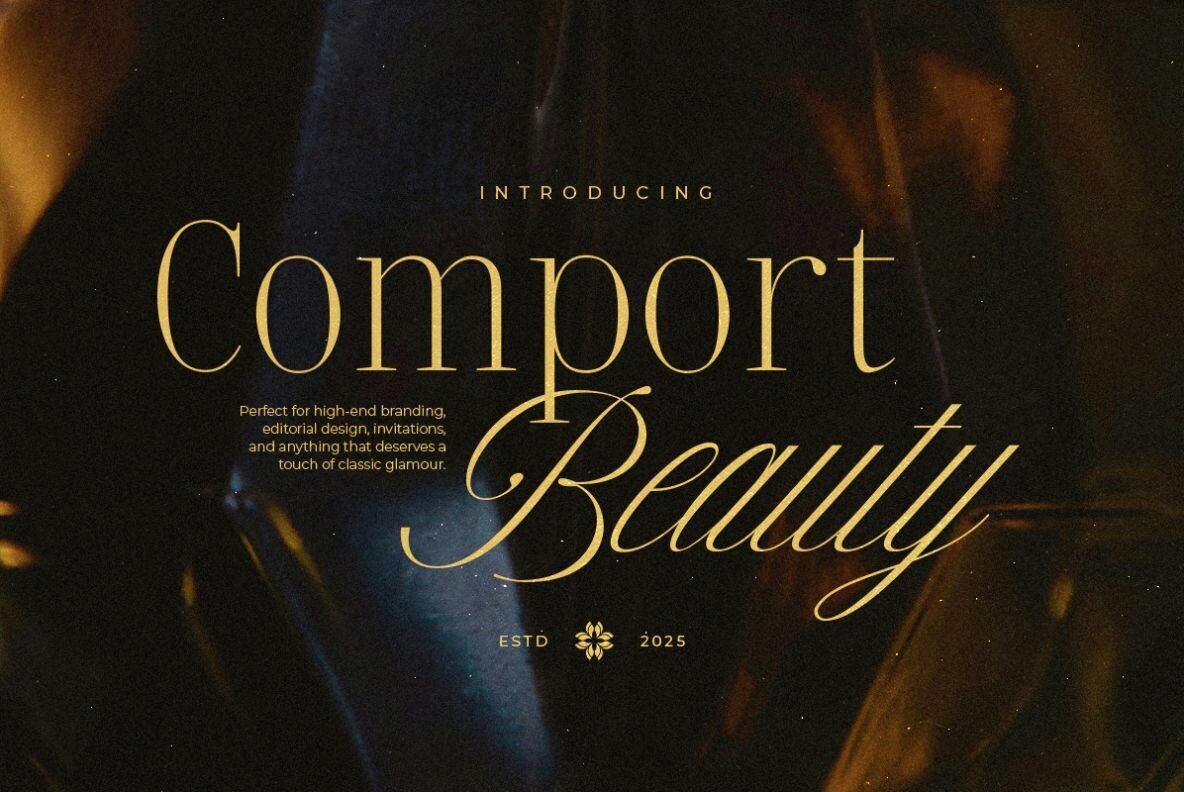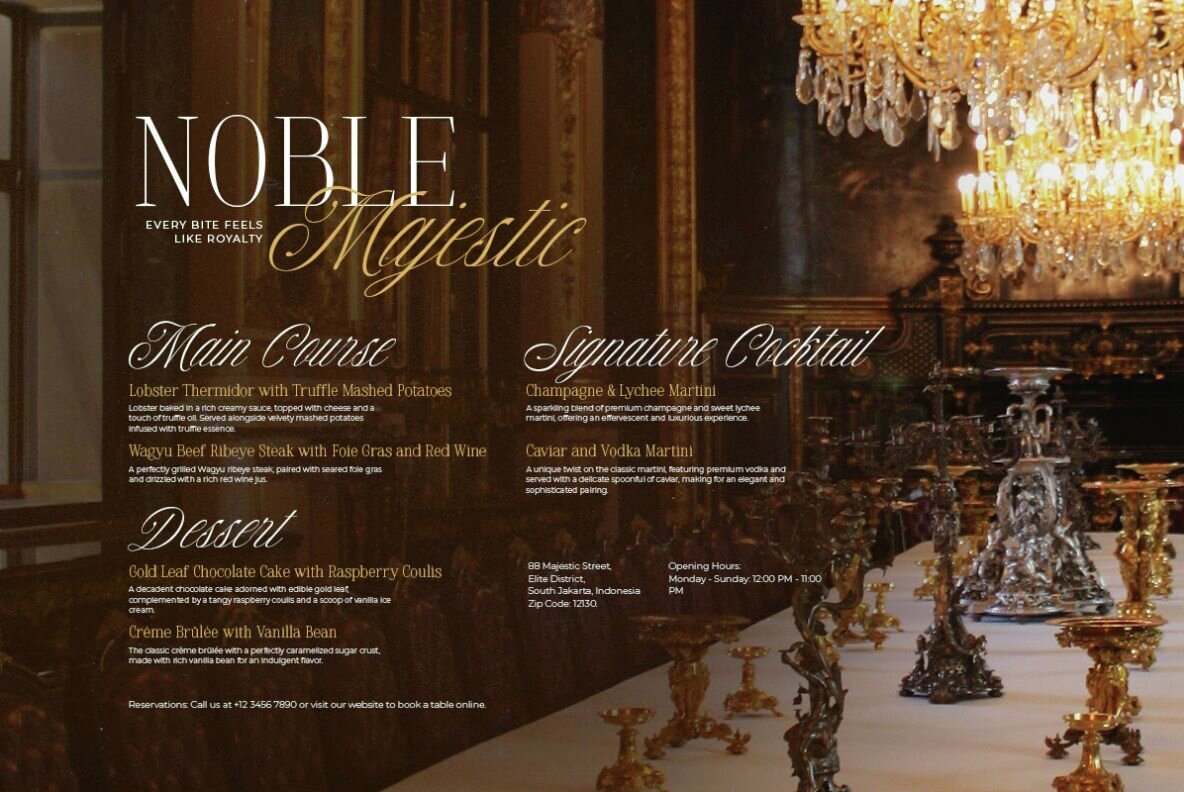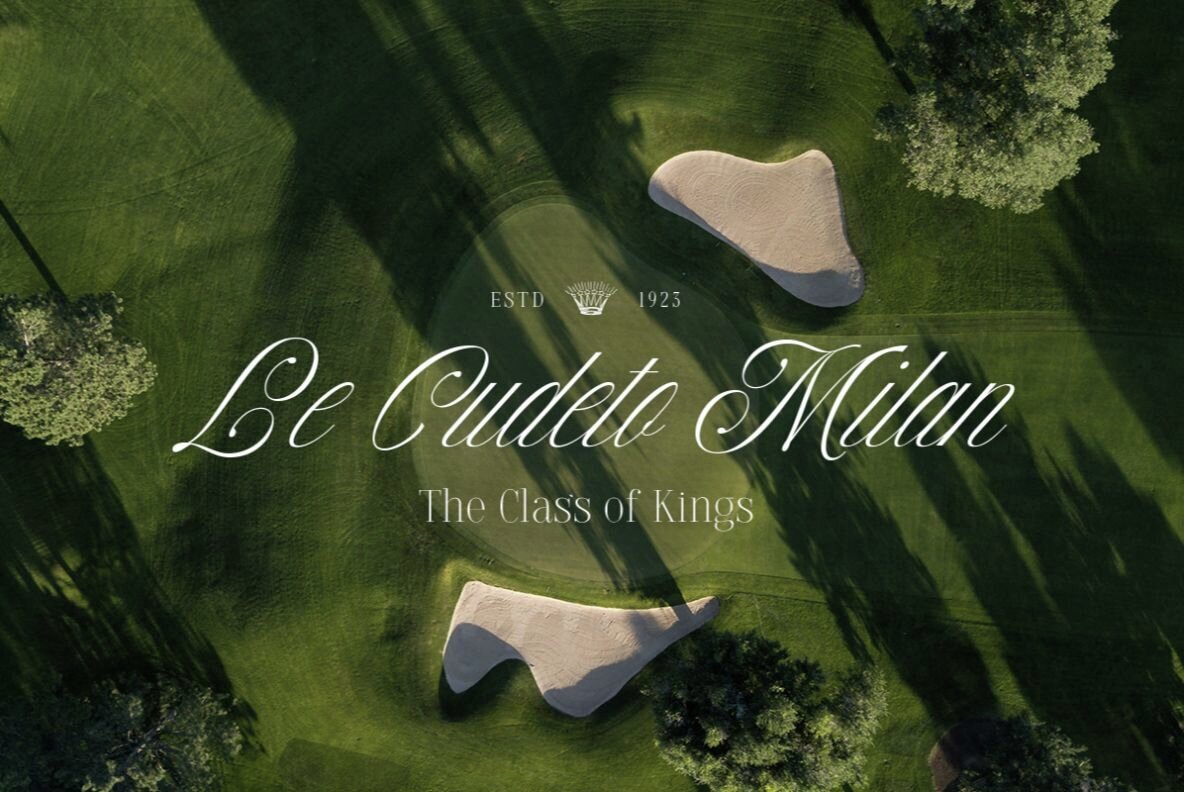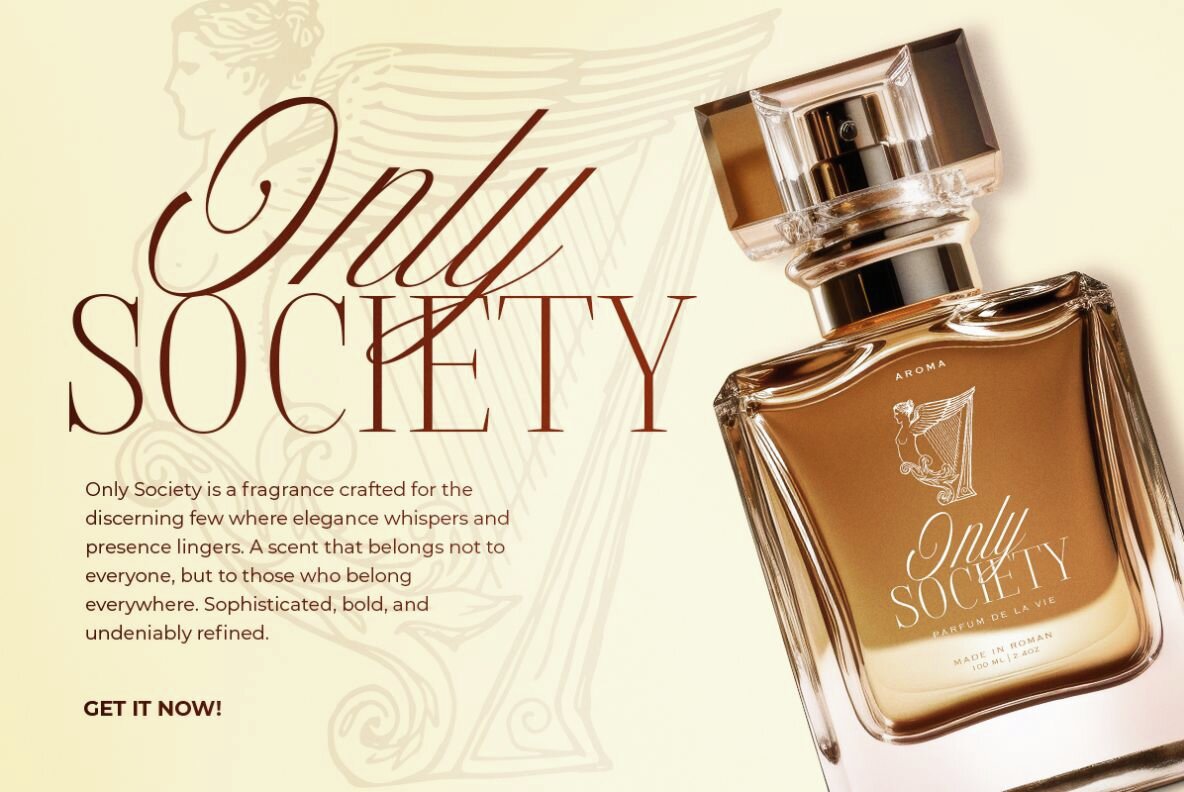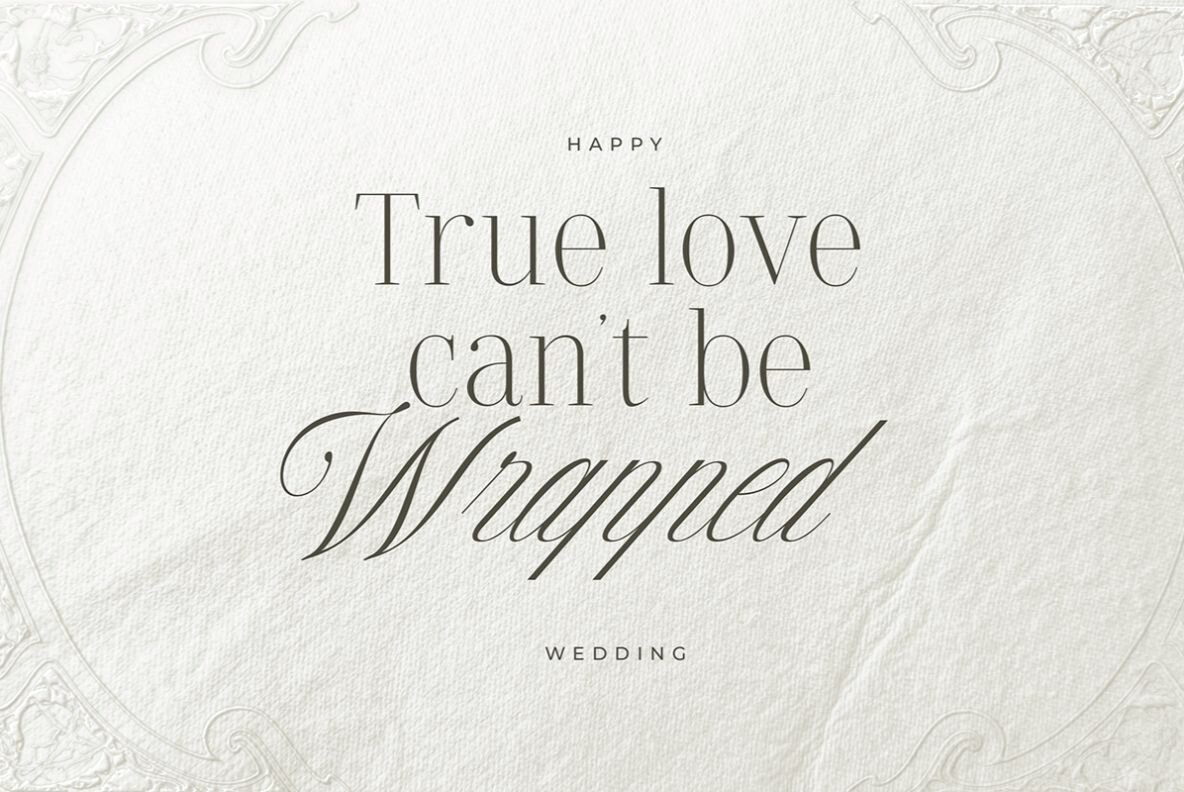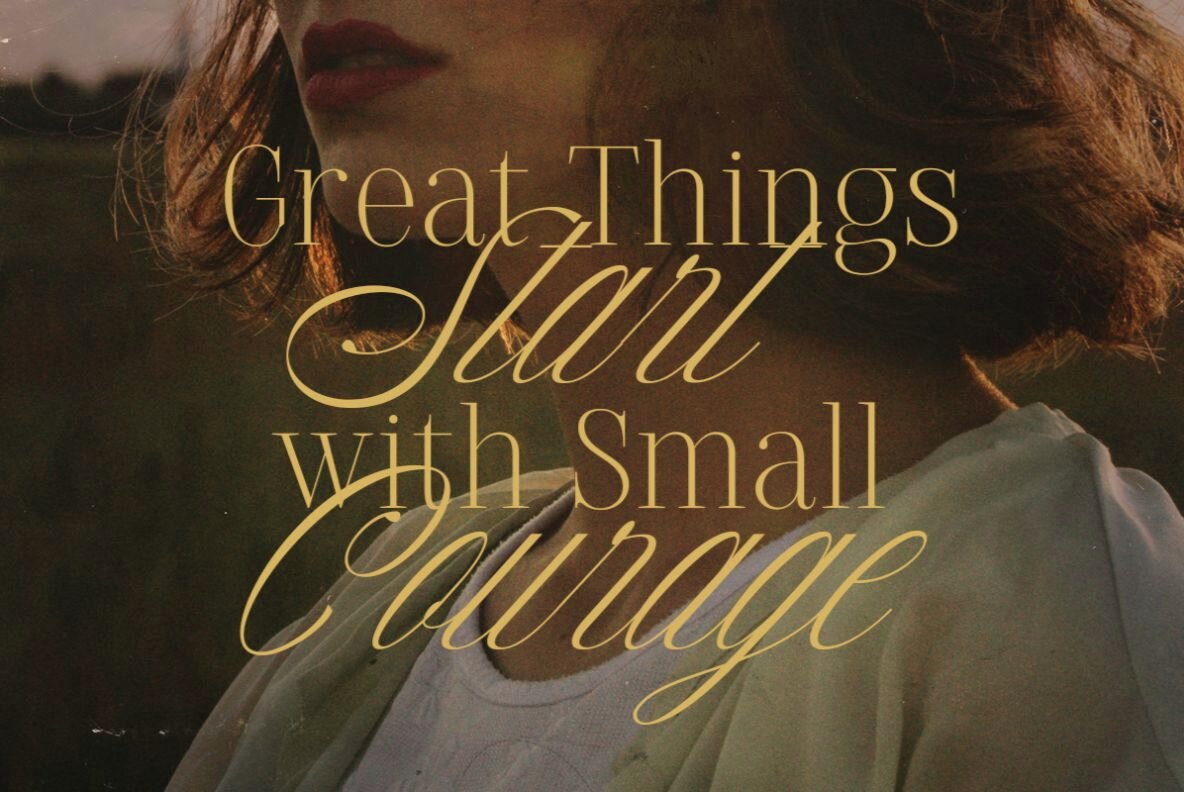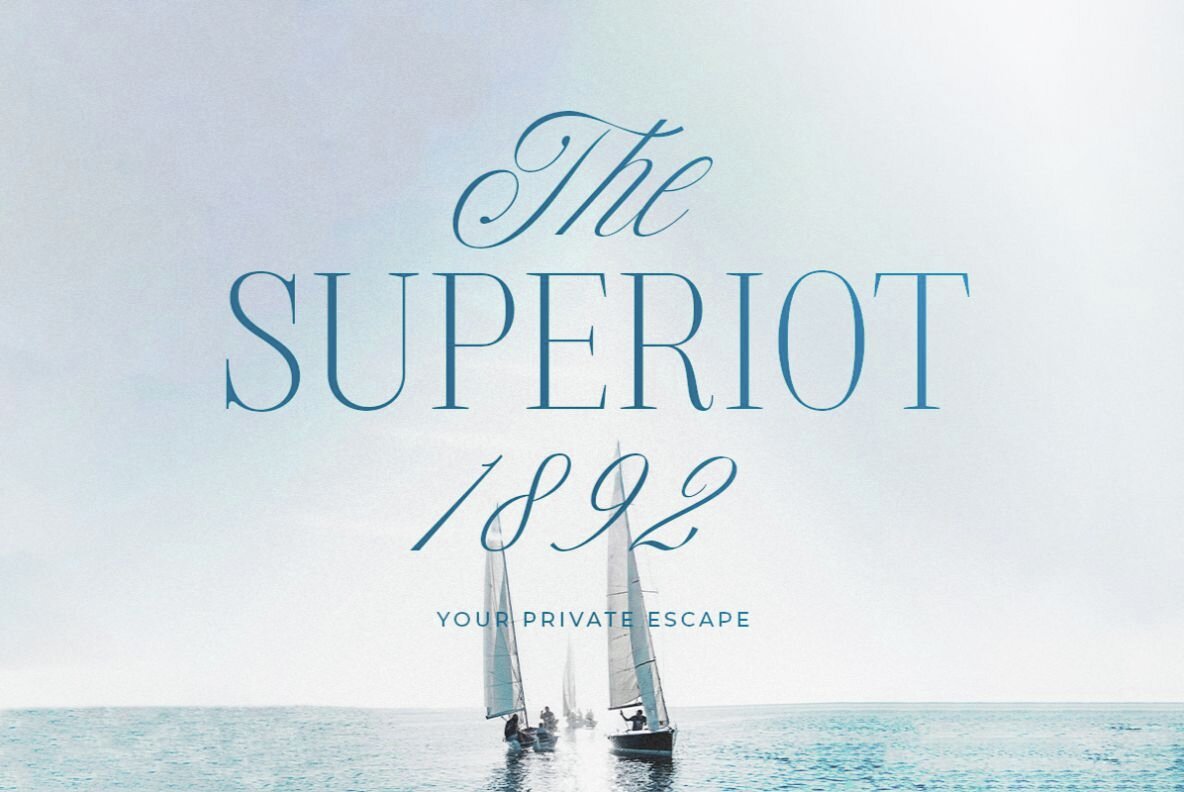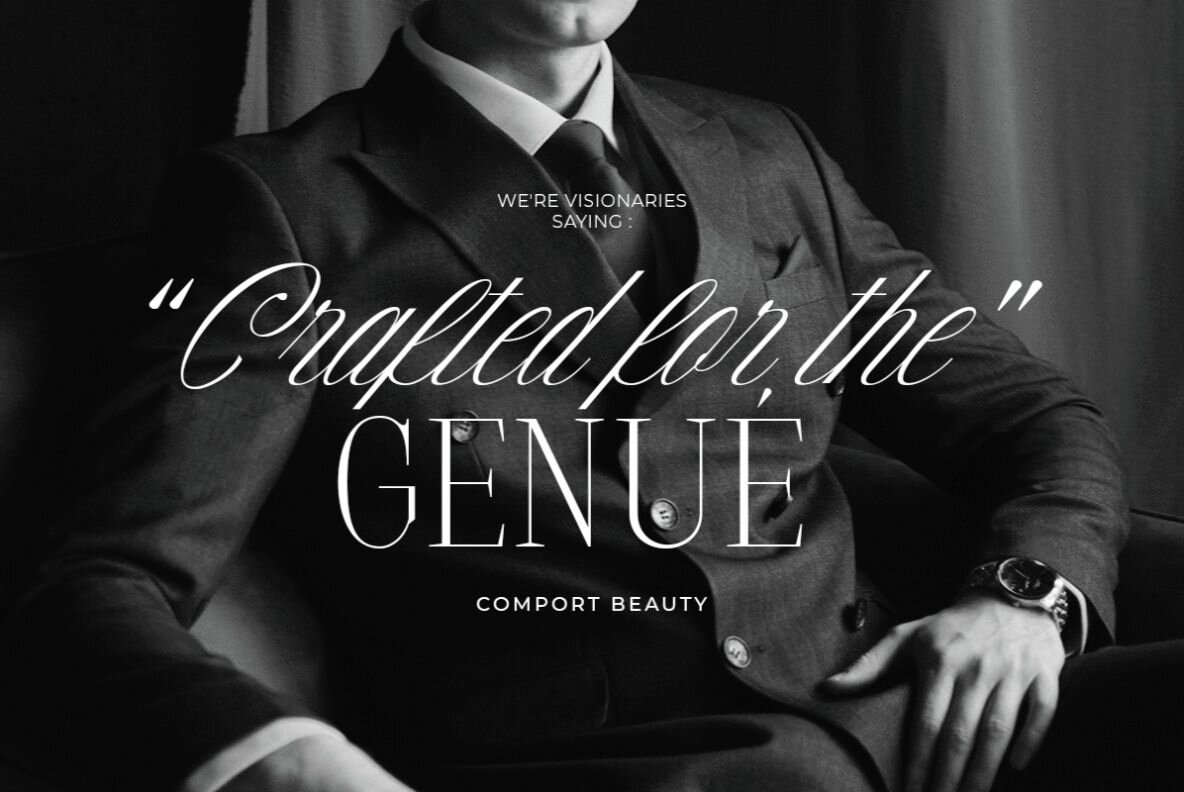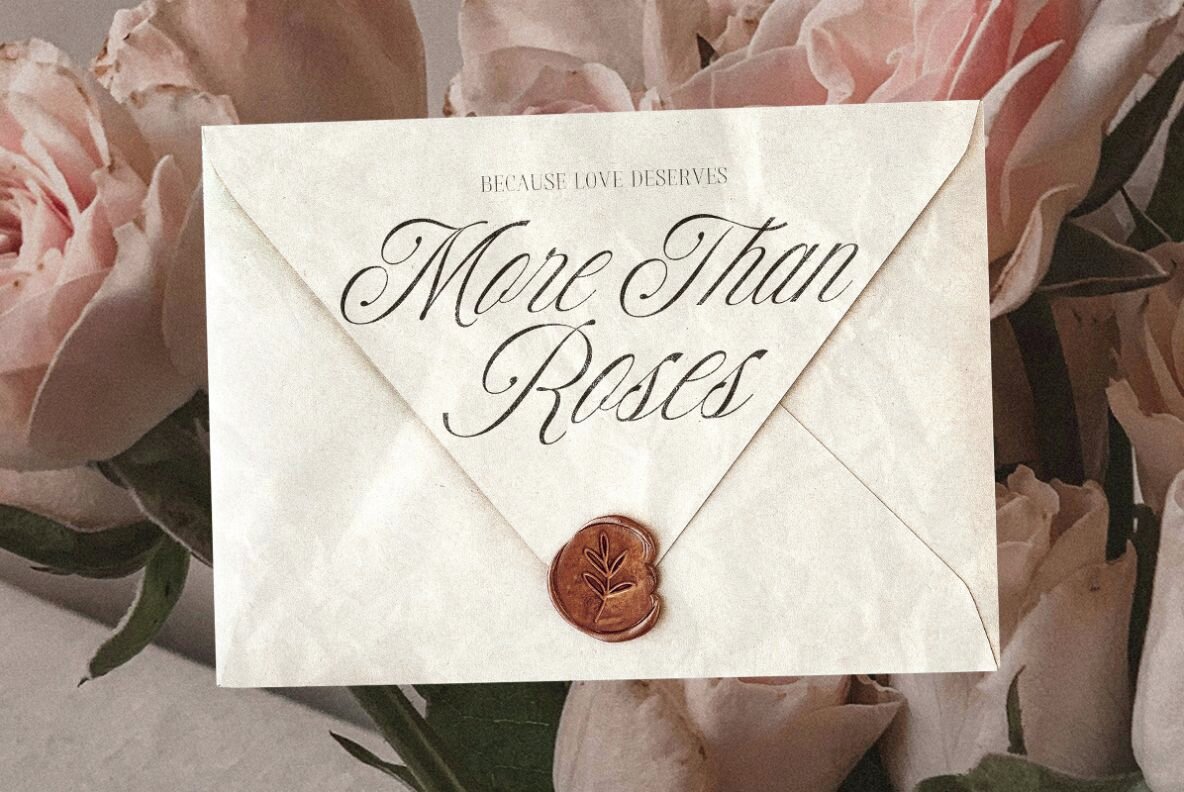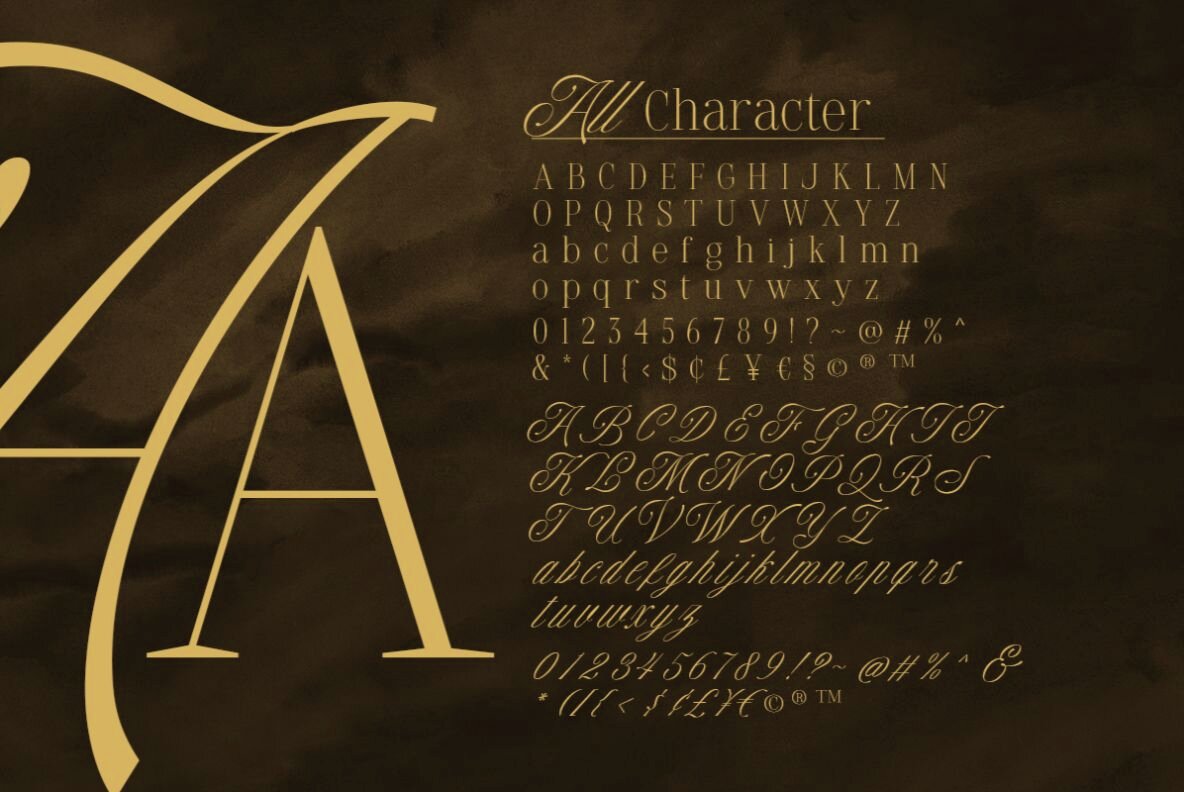
Comport Beauty Font
Comport Beauty Script
Comport Beauty Serif
Comport Beauty effortlessly marries the sophistication of serif with the charming lyricism of script. This romantic and classy font duo infuses every design with its unique blend of elegance and grace. Perfectly tailored for wedding invitations, branding, and logos, it adds an enchanting touch to love-themed projects, ensuring that each detail resonates with warmth. With its versatile style, Comport Beauty supports multiple languages, ensuring that the elegance it offers transcends linguistic boundaries. This aesthetic flexibility makes it an ideal choice for designers looking to convey beauty through typography.Comport Beauty: Elegance in a Harmonious Font Duo